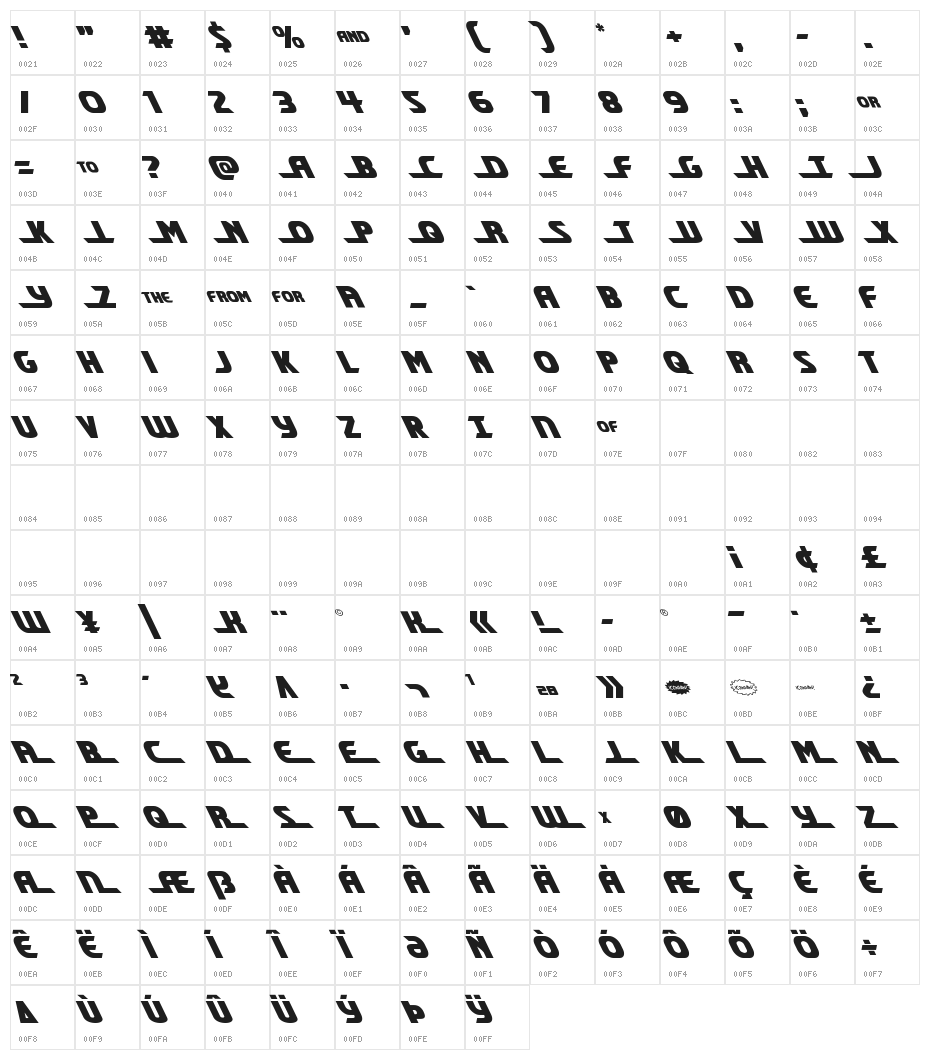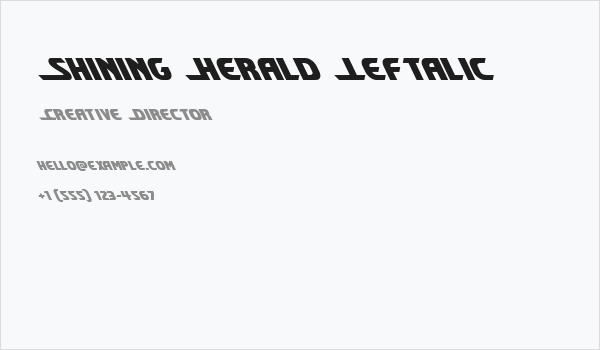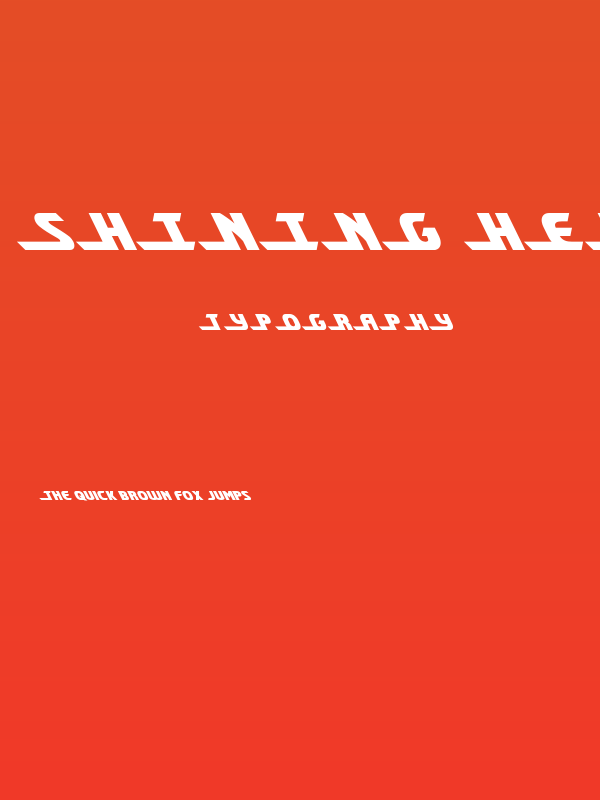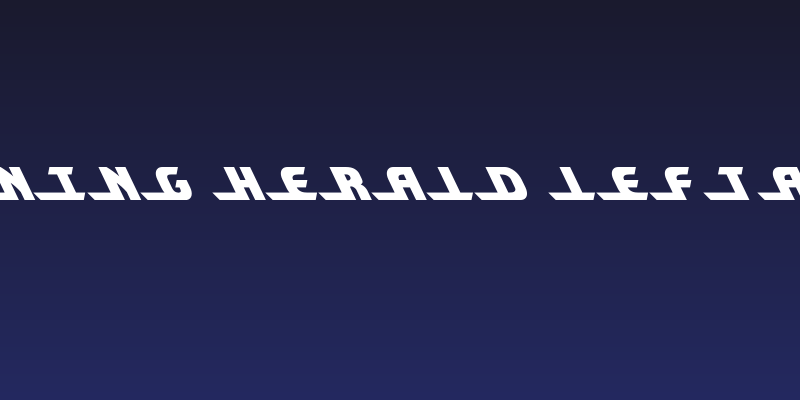
Shining Herald Leftalic Font
Shining Herald Leftalic Description
This font features a bold and dynamic style with a strong geometric influence. The letters are sharply angled, giving a sense of movement and energy. The uppercase and lowercase letters maintain a consistent width, creating a cohesive look. The numbers and special characters are designed to match the boldness of the alphabet, ensuring uniformity across all characters. The font's unique slant adds a modern twist, making it stand out in any design. Its thick strokes and angular cuts make it ideal for attention-grabbing headlines and impactful logos.
Proposed ProjectsIdeal for sports branding, dynamic posters, modern logos, and eye-catching headlines.